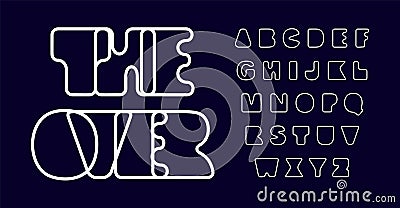
Line design font, round smooth contour letters. Minimalist, crisp, heavy font for space-age design, perfect for tech #289758352
Line design font, round smooth contour letters. Minimalist, crisp, heavy font for space-age design, perfect for tech logo symbol. Typographic silhouette. Vector typeset.